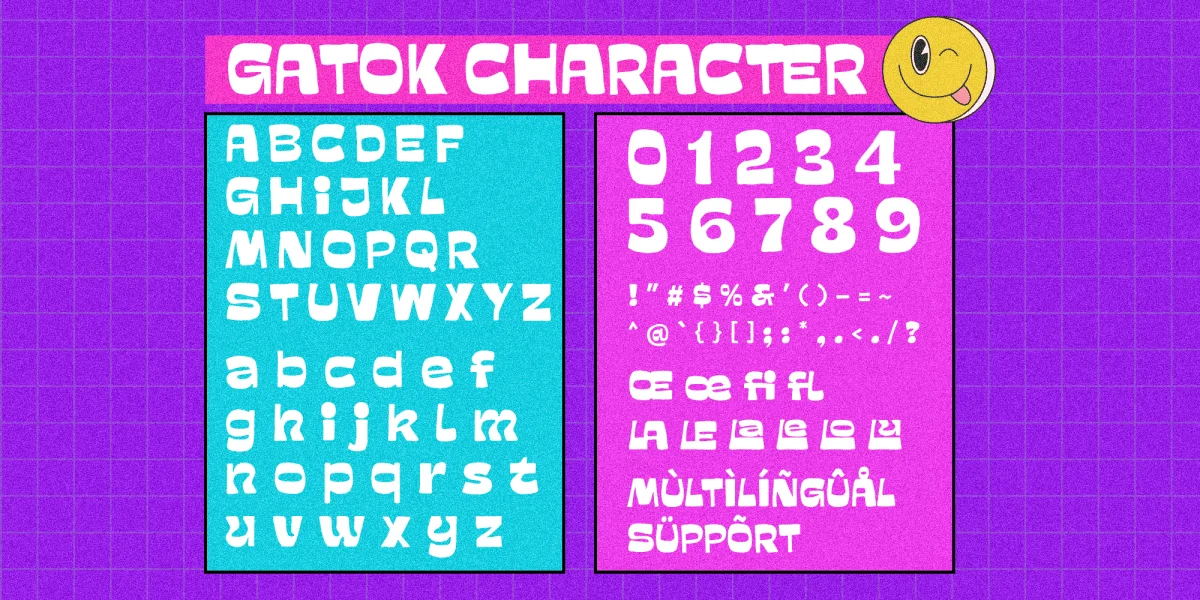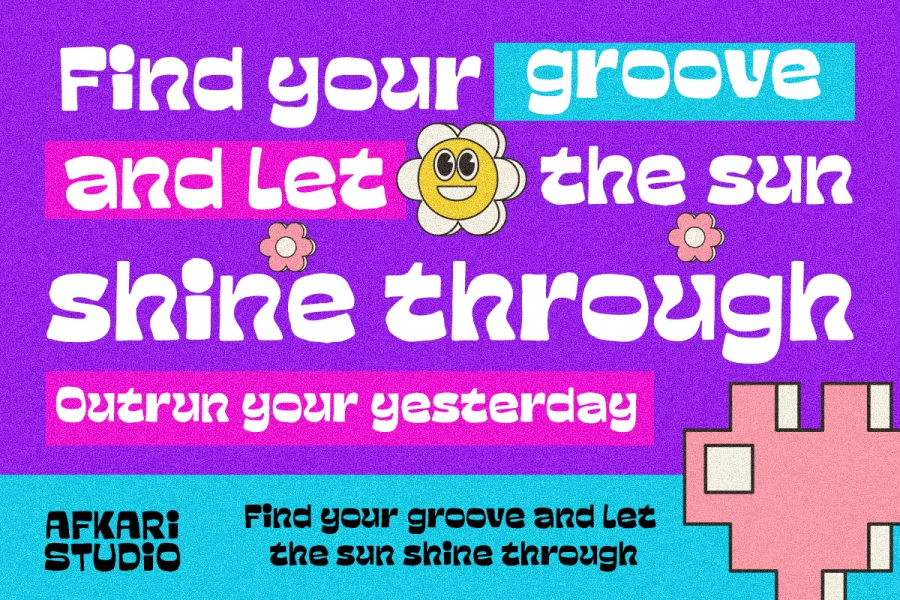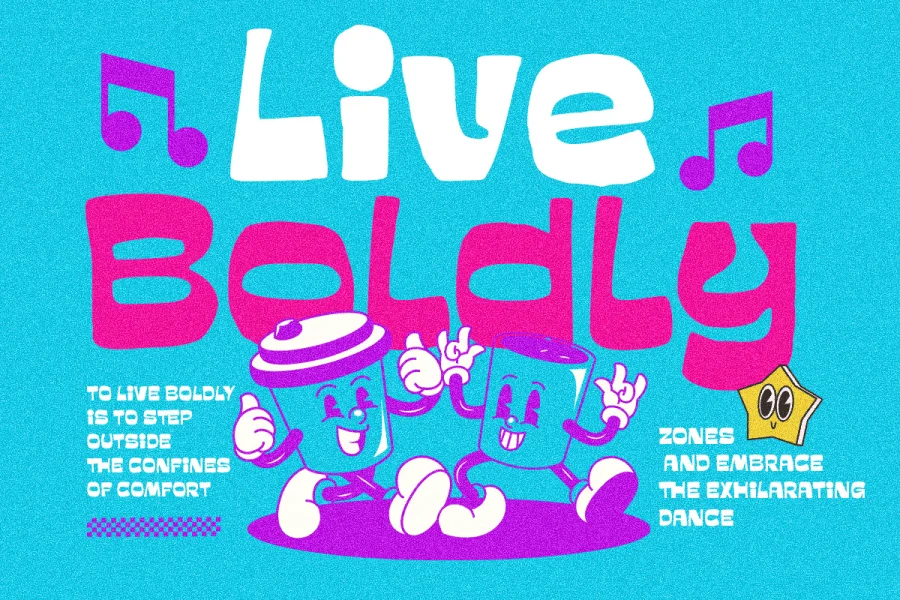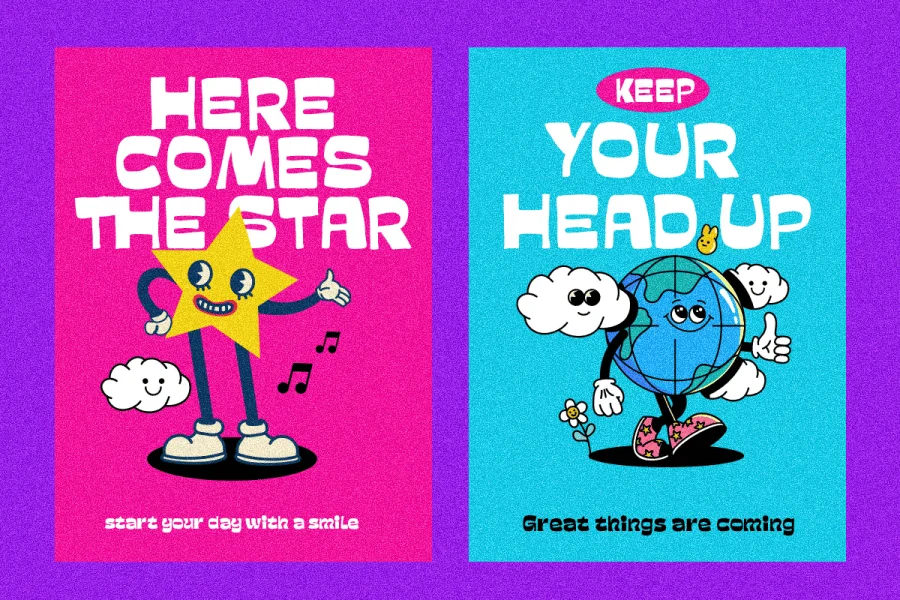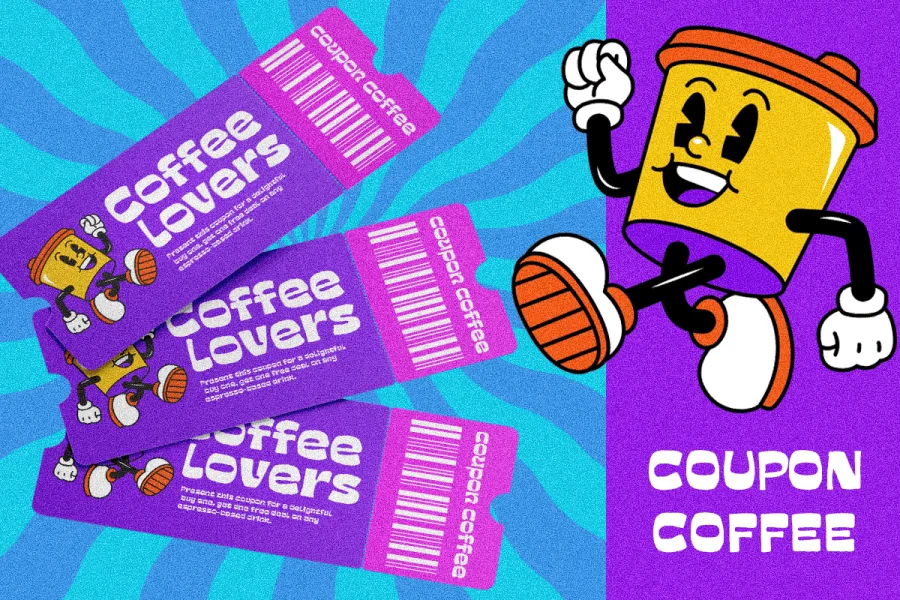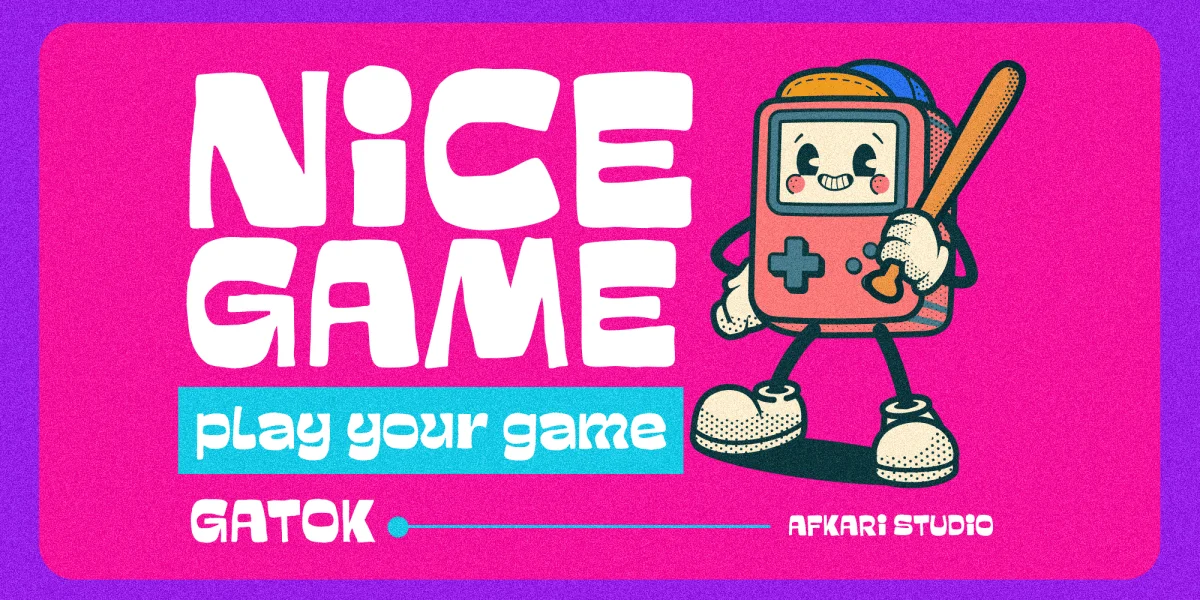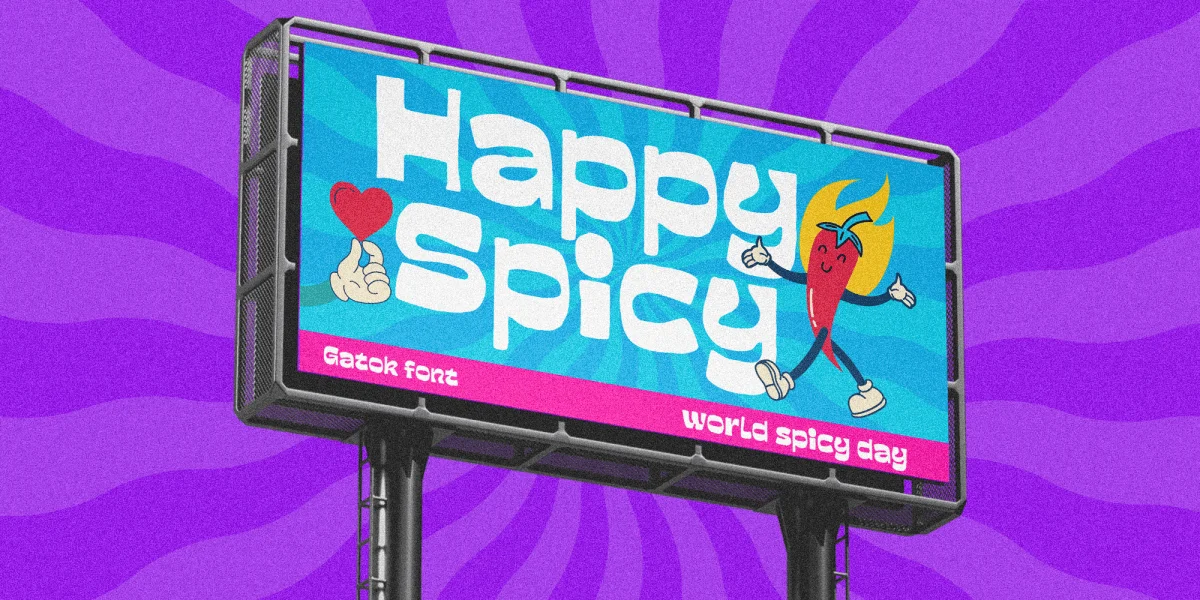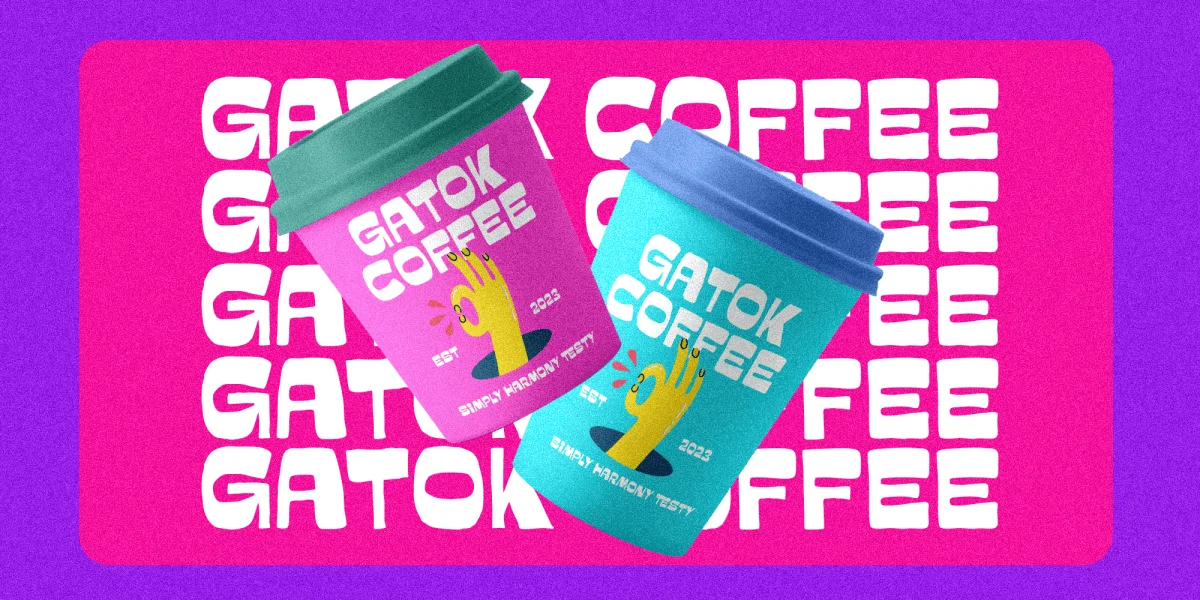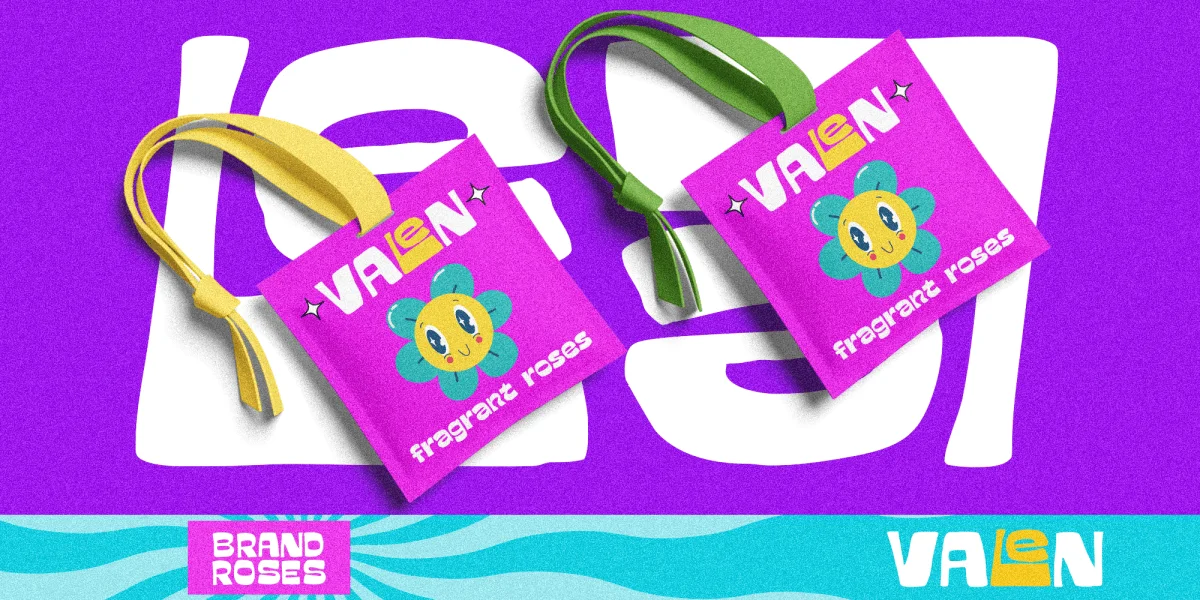
Gatok - Playful Display Typeface
Gatok is a playful display typeface designed to bring fun, creativity, and bold personality into your designs. Featuring quirky shapes, lively proportions, and expressive character forms, this font delivers a cheerful and eye-catching appearance that instantly grabs attention.